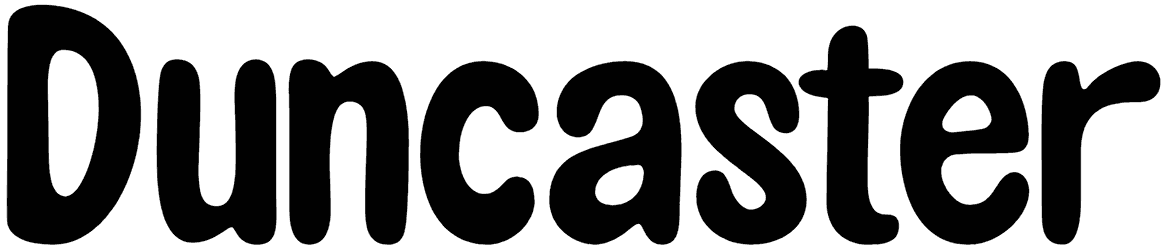
Duncaster Font
Have you ever been in a situation where the shapes of letters in a phrase attract you to read it? The Duncasters is a comic font whose job is to entertain the viewer and grasp the attention at first sight.
The shape of the letters and the design of this font are simple yet memorable. You may use this font on a T-shirt or a beach party flyer since it boosts the viewers’ energy and invites them to follow your content.